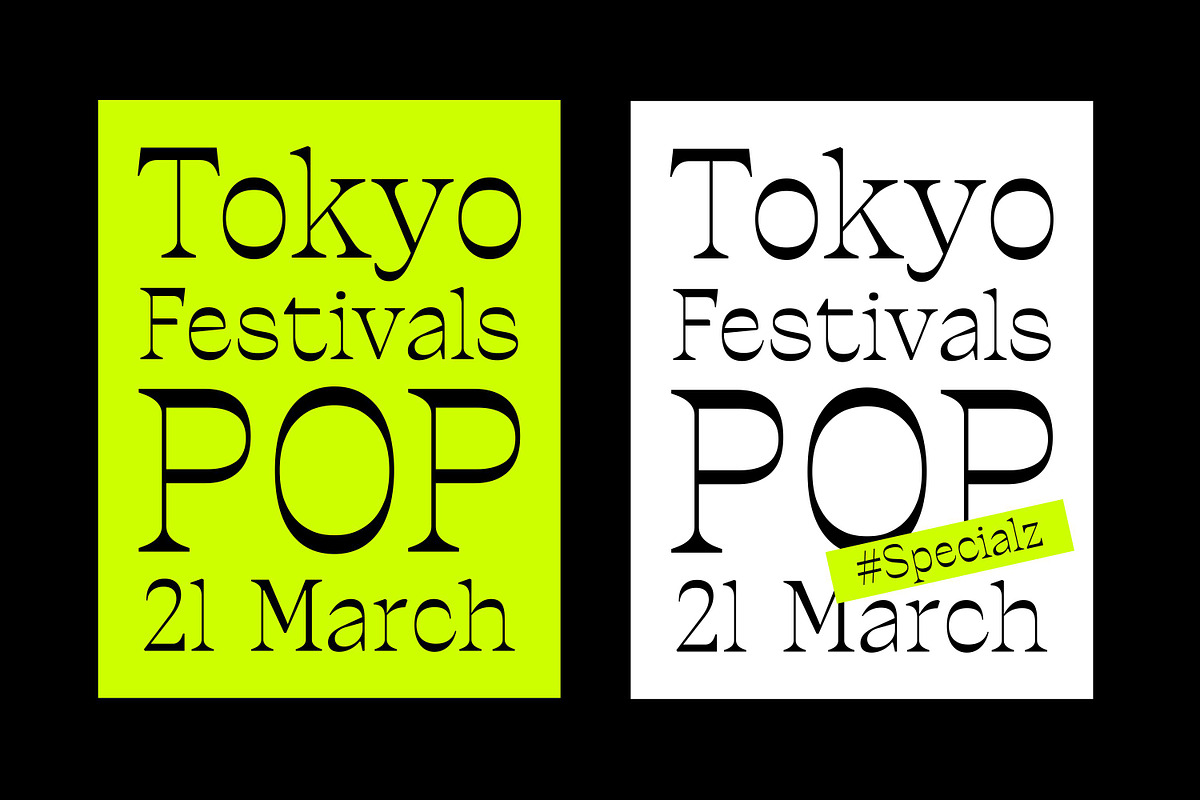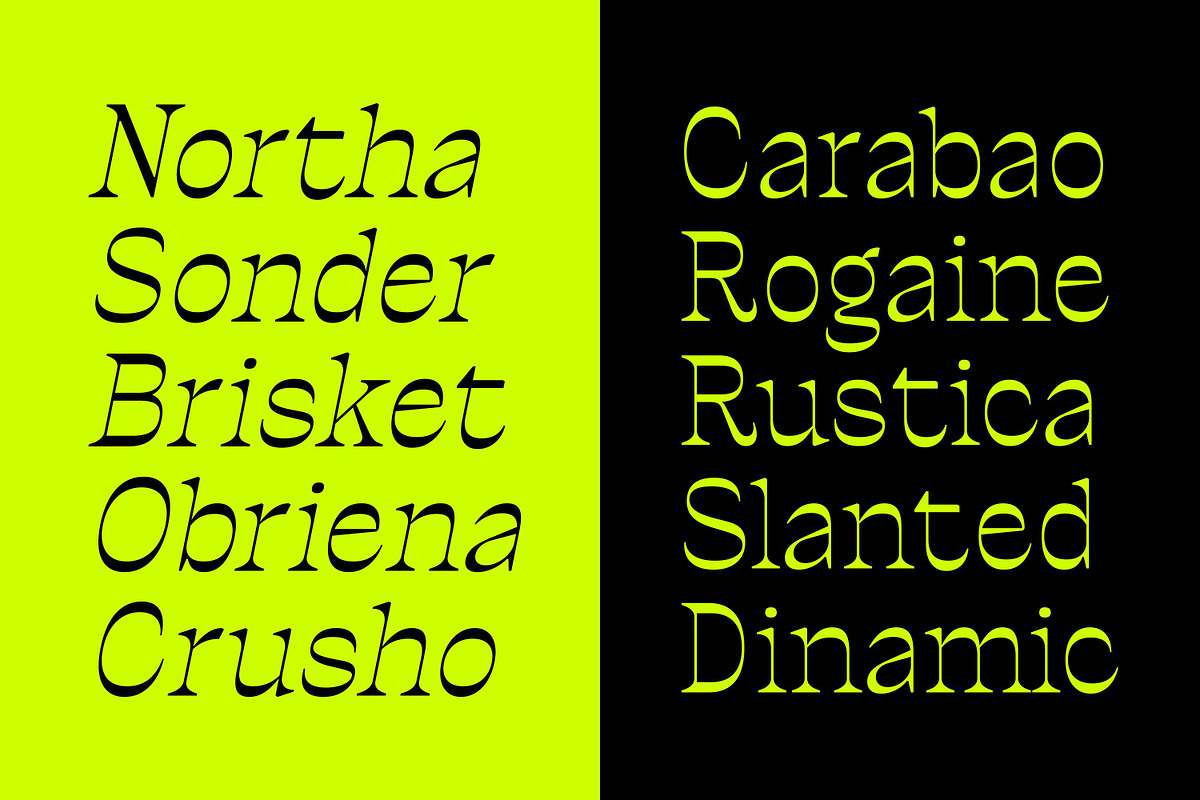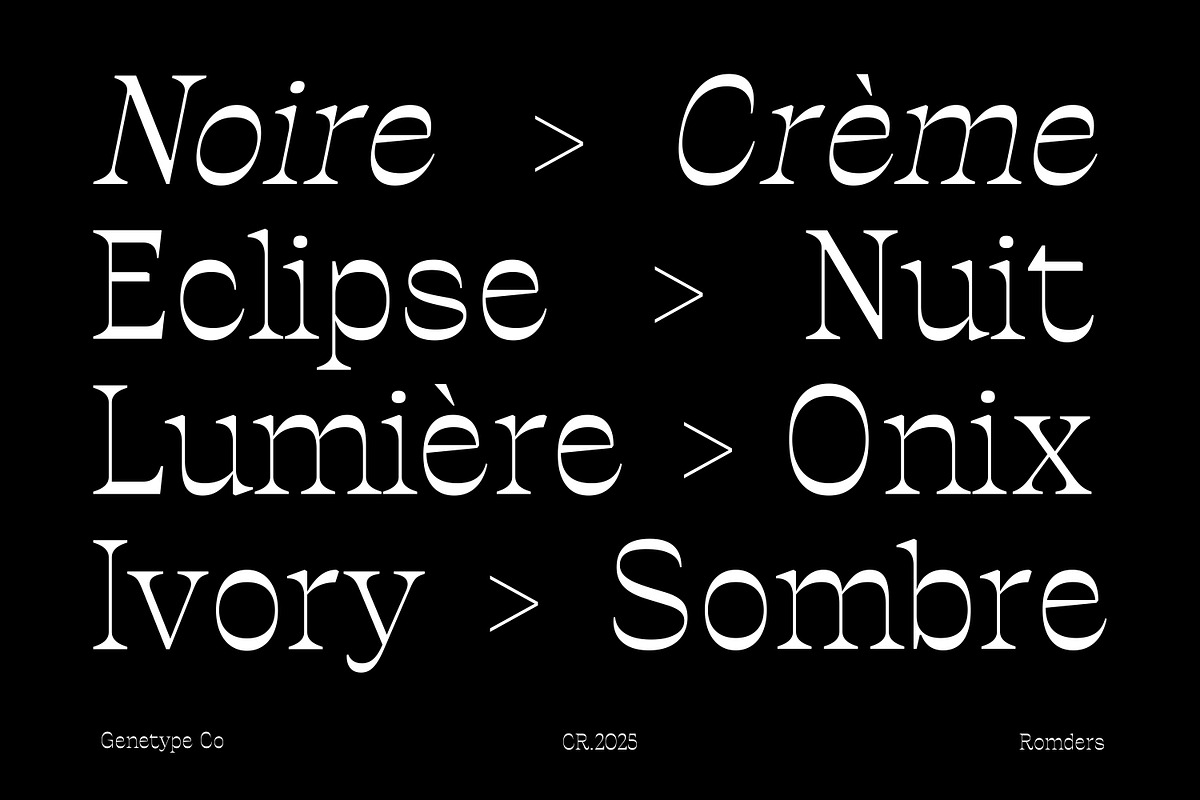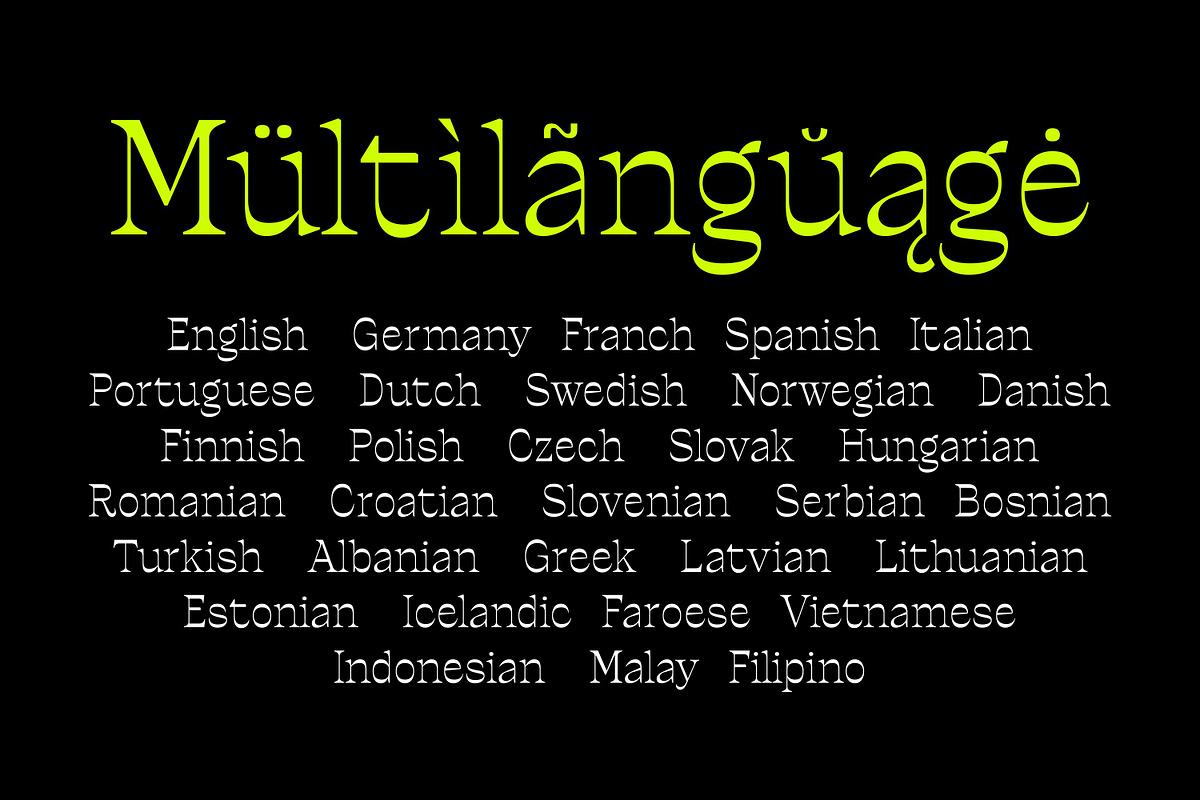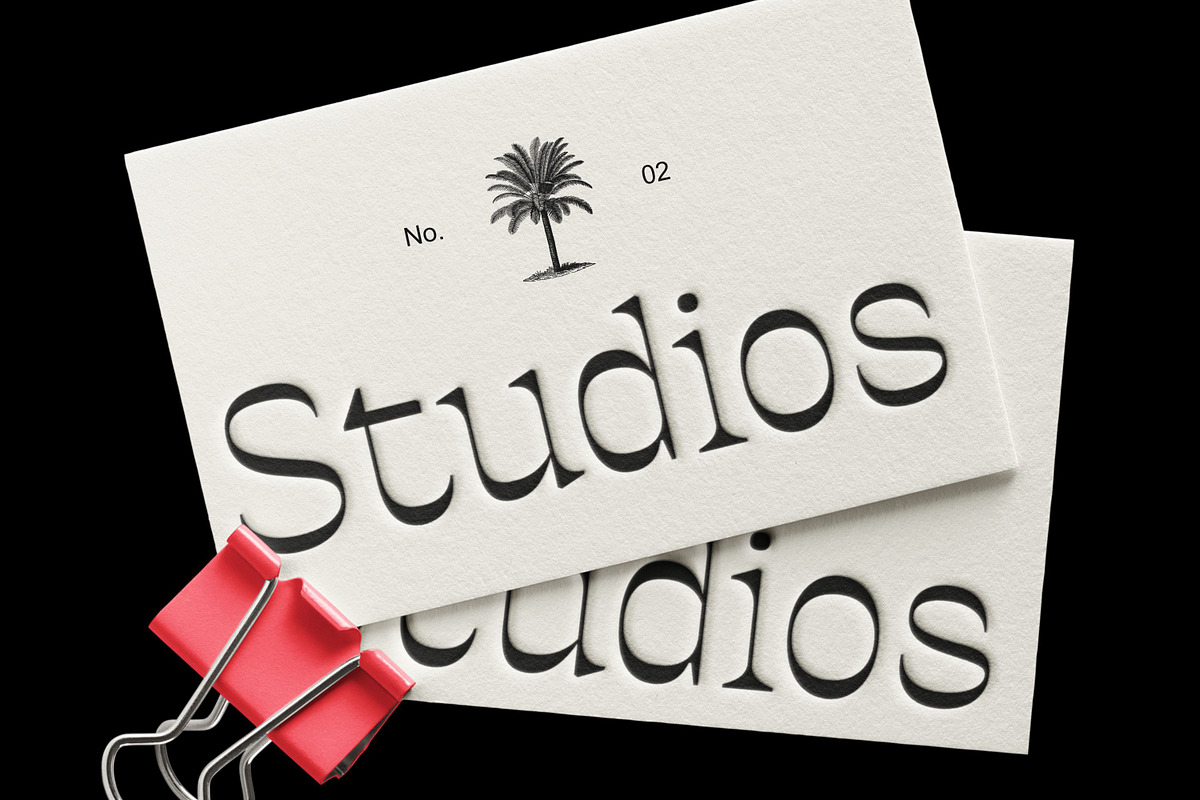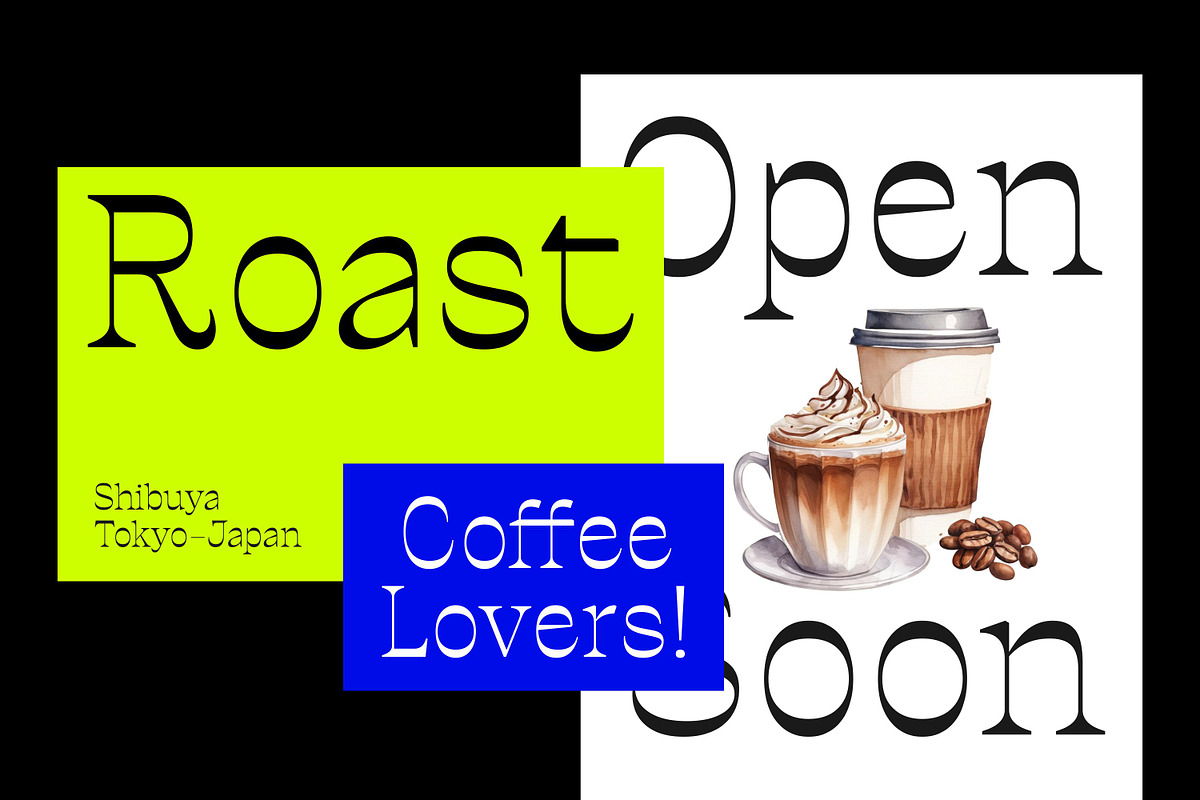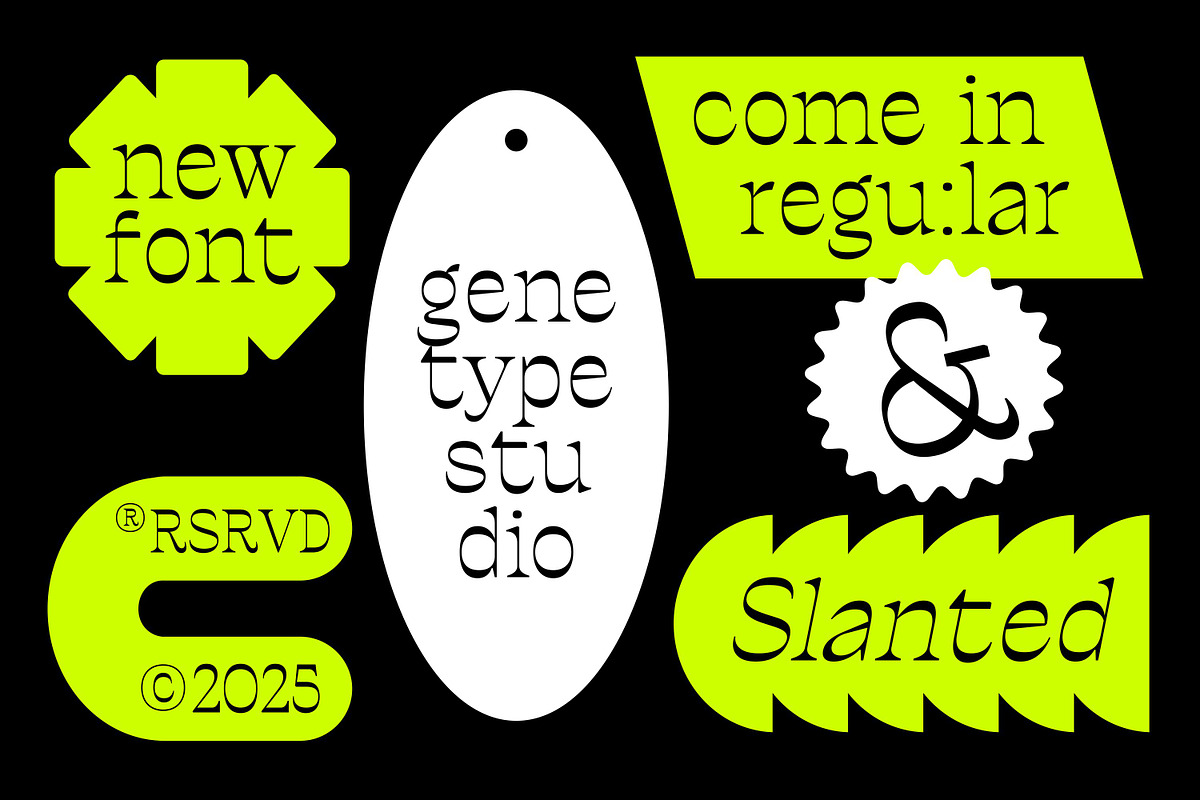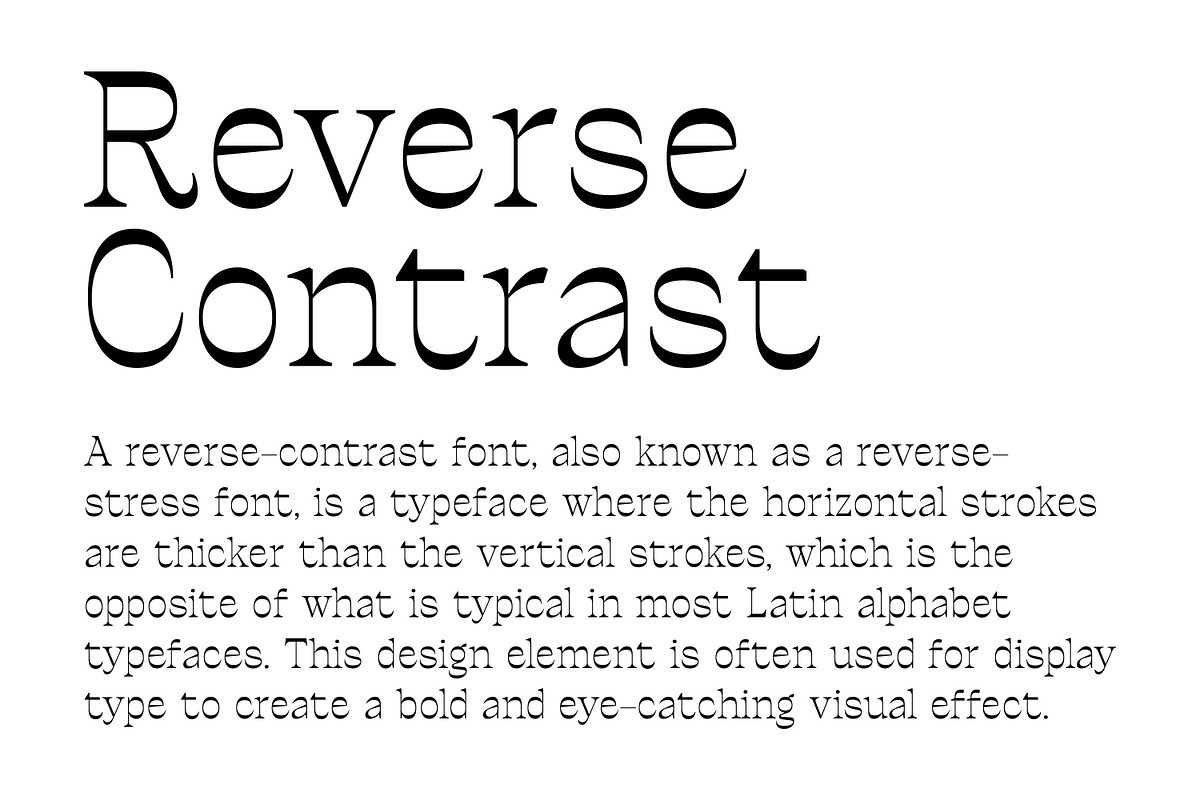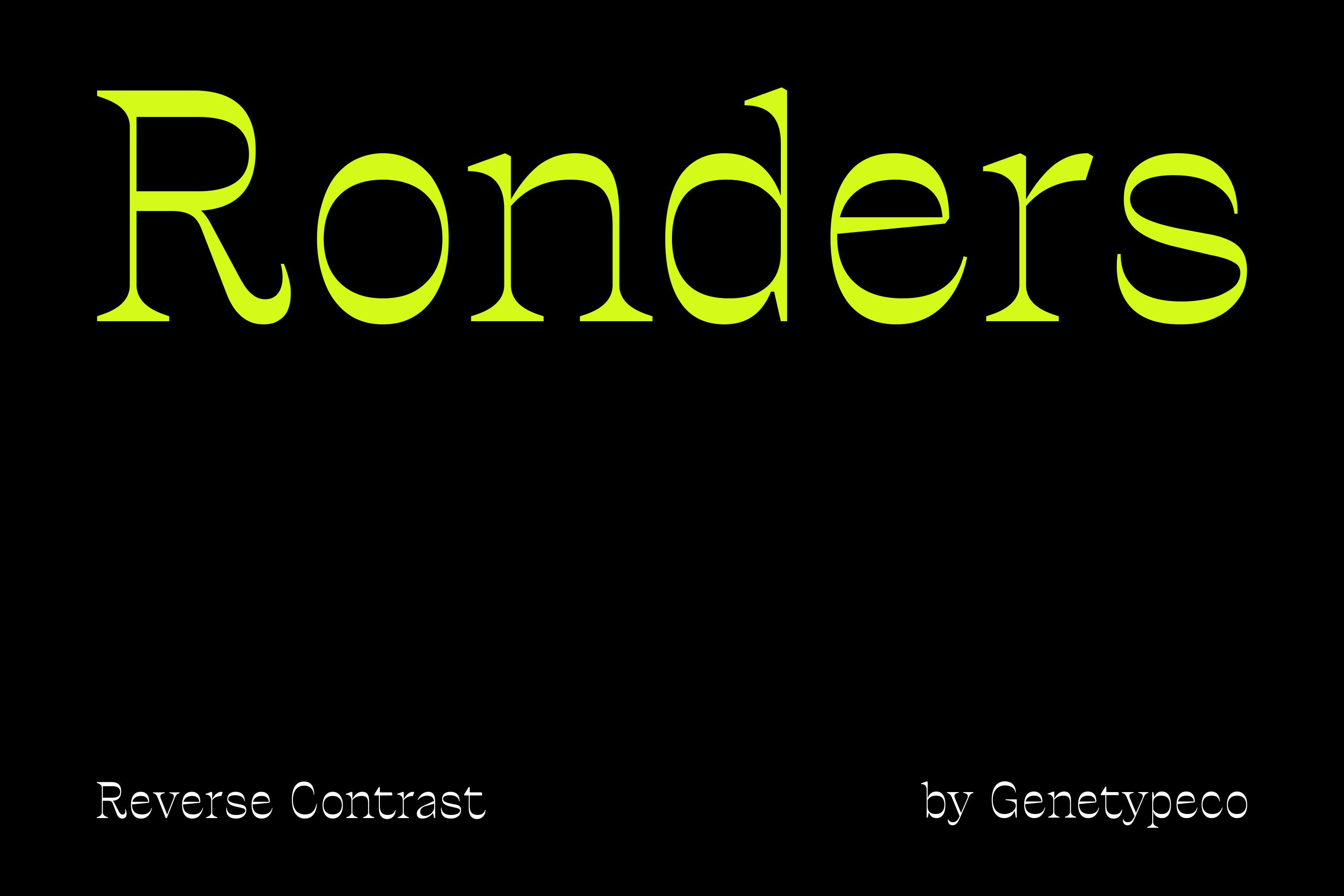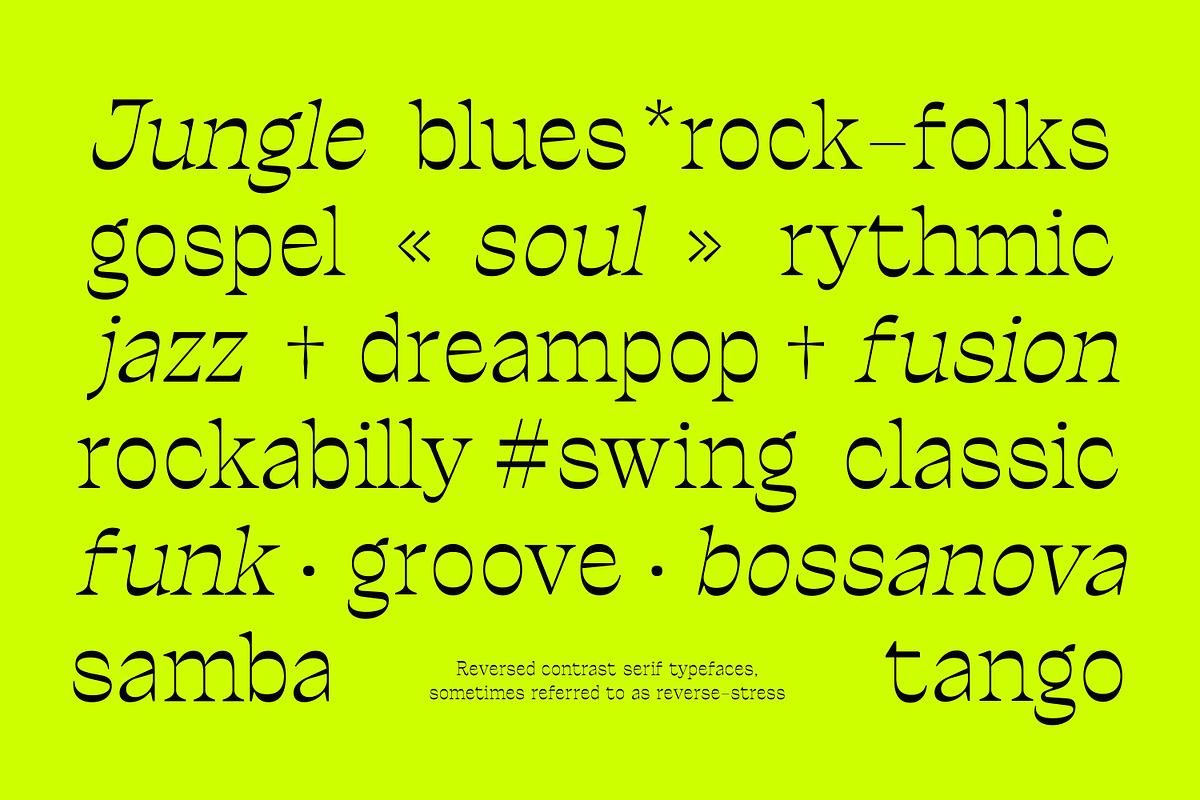
Ronders Reverse Contrast Font
Ronders is a fresh take on the classic serif, featuring reverse contrast that flips typographic tradition on its head. With its bold horizontals, quirky curves, and high character personality, this typeface brings a dynamic, contemporary twist to editorial layouts, branding, posters, and more.
Perfectly suited for designers who want to stand out, Ronders is both retro-inspired and forward-thinking—a font that demands attention while remaining stylish and readable.
Now also available in a stylish Slanted version, adding extra movement and energy to your compositions